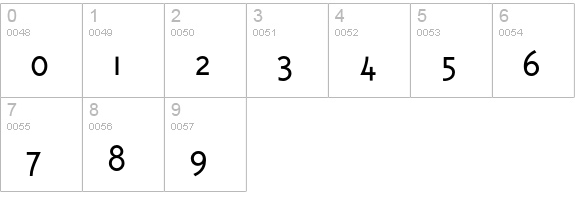
TriplexLight Font Details
TriplexLight is a stunningly elegant and versatile font that effortlessly combines sophistication with modernity. Its sleek lines and graceful curves create a sense of refinement and class, making it the perfect choice for any design project that requires a touch of elegance. This font's light weight adds a delicate and airy quality to any text, making it ideal for creating captivating headlines, stylish logos, and eye-catching advertisements. Whether you're designing for print or digital media, TriplexLight is sure to make a lasting impression. One of the best things about TriplexLight is that it is available for free. Yes, you read that right - this incredible font can be freely downloaded at FontsMarket.com. This means that you can enhance your designs without having to worry about breaking the bank. It's not often that you come across a font of this caliber that doesn't come with a hefty price tag. So why wait? Take advantage of this amazing opportunity to elevate your design work with TriplexLight. Download it for free at FontsMarket.com and let your creativity soar. With TriplexLight, your designs will exude sophistication and elegance, leaving a lasting impression on anyone who sees them.